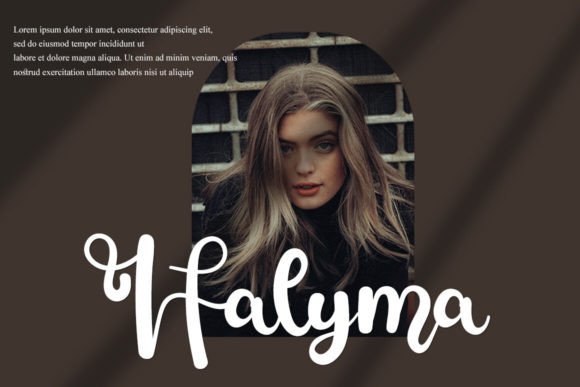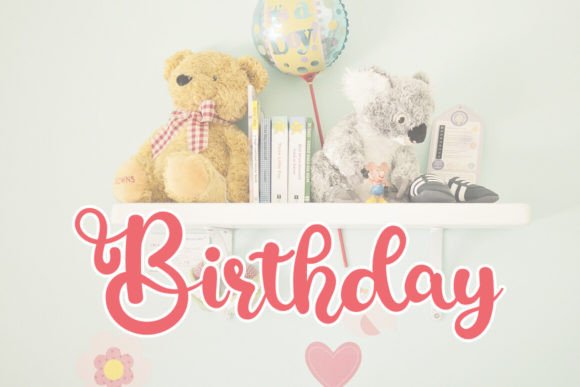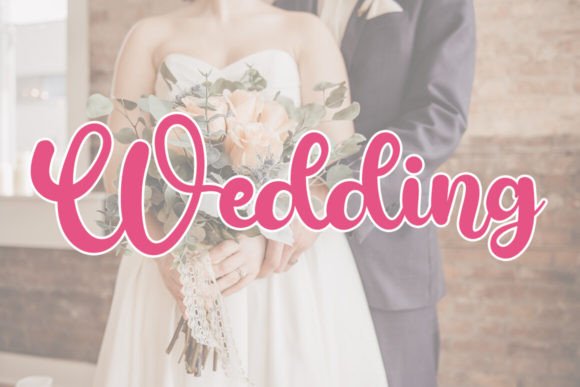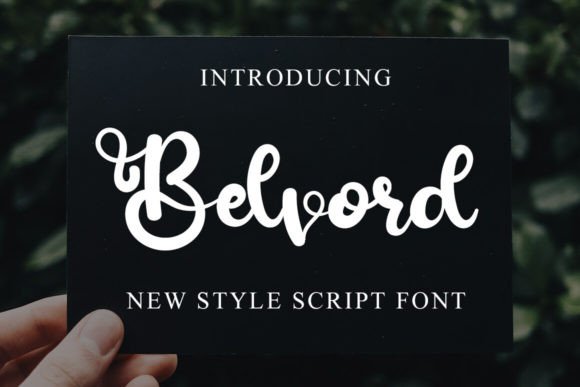
Discover the Elegance of Belvord Font: Elevate Your Brand with Modern Sophistication
In the realm of typography, fonts play a pivotal role in shaping the visual identity of a brand. The right font can elevate your business, making it stand out in a crowded marketplace. If you’re on the hunt for a typeface that exudes modern style and sophistication, look no further than the Belvord Font. This stunning font is tailor-made for creative projects, offering a versatile solution for businesses aiming to make a lasting impression.
Why Belvord Font Stands Out
Belvord Font boasts a contemporary design that is both sleek and elegant. Its clean lines and modern aesthetic make it an ideal choice for a wide range of applications, from digital platforms to print materials. Whether you’re designing a website, crafting social media content, or creating marketing materials such as banners, advertisements, and brochures, Belvord Font is sure to enhance your project’s visual appeal.
One of the key advantages of Belvord Font is its versatility. It’s not just limited to digital use; it’s equally effective in print. Use it to create stunning invitation cards, professional letterheads, or eye-catching product packaging logos. The font’s adaptability makes it a valuable asset for any designer or business owner looking to maintain consistency across various mediums.
Benefits for Your Business
By incorporating Belvord Font into your branding strategy, you can enjoy numerous benefits:
- Enhanced Visual Appeal: The modern style of Belvord Font will instantly elevate the look of your products and marketing materials, making them more attractive to your target audience.
- Luxurious Feel: The elegant design of the font gives off a luxurious vibe, which can help position your brand as premium and high-end.
- Improved Brand Recognition: Consistency in typography is key to building a strong brand identity. Belvord Font can be used across all your marketing materials, reinforcing your brand’s image and making it more recognizable.
- Competitive Edge: In a market where businesses are constantly vying for attention, standing out is crucial. Belvord Font can give you the edge you need, setting your brand apart from competitors.
How to Make the Most of Belvord Font
To truly leverage the potential of Belvord Font, consider the following tips:
- Pair it Wisely: When using Belvord Font alongside other typefaces, ensure they complement each other. A modern sans-serif font can work well with Belvord for body text, creating a balanced and harmonious design.
- Experiment with Sizes and Weights: Don’t be afraid to play around with different sizes and weights of Belvord Font to create visual hierarchy and emphasis in your designs.
- Consider Your Audience: Tailor your use of Belvord Font to appeal to your target audience. For instance, if you’re targeting a younger demographic, you might opt for a bolder, more vibrant application of the font.
Belvord Font is more than just a typeface; it’s a tool for transforming your brand’s visual identity. Its modern style, versatility, and elegance make it an excellent choice for businesses looking to elevate their brand image. Whether you’re a designer seeking a sophisticated font for your next project or a business owner aiming to refresh your brand’s look, Belvord Font is definitely worth considering. So, don’t hesitate – give Belvord Font a try and witness the positive impact it can have on your brand’s perception and appeal.
With Belvord Font, the possibilities are endless. From creating visually stunning marketing materials to crafting a cohesive brand identity, this font is sure to become an indispensable part of your design toolkit. Experience the elegance and modern sophistication that Belvord Font has to offer, and take your brand to new heights.